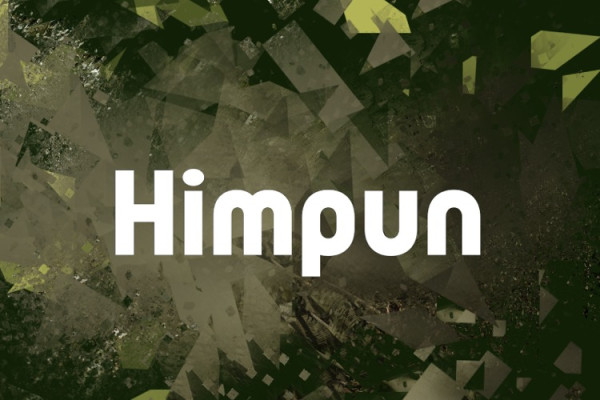
Himpun Font
Himpun Font, a simple and sans serif font. So perfect for you who needs a typeface for logo designs, magazine, social media, brochure, and many more.